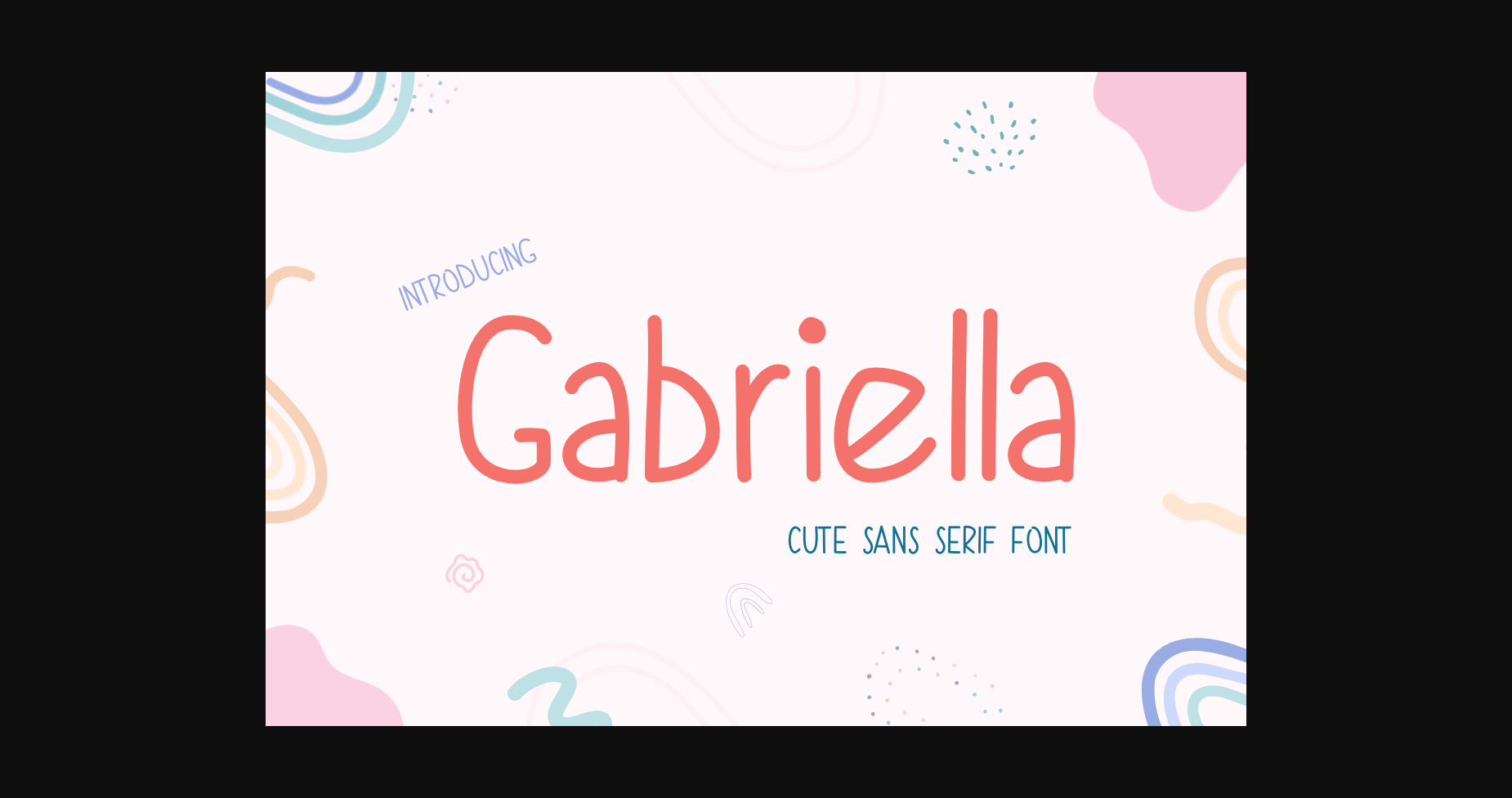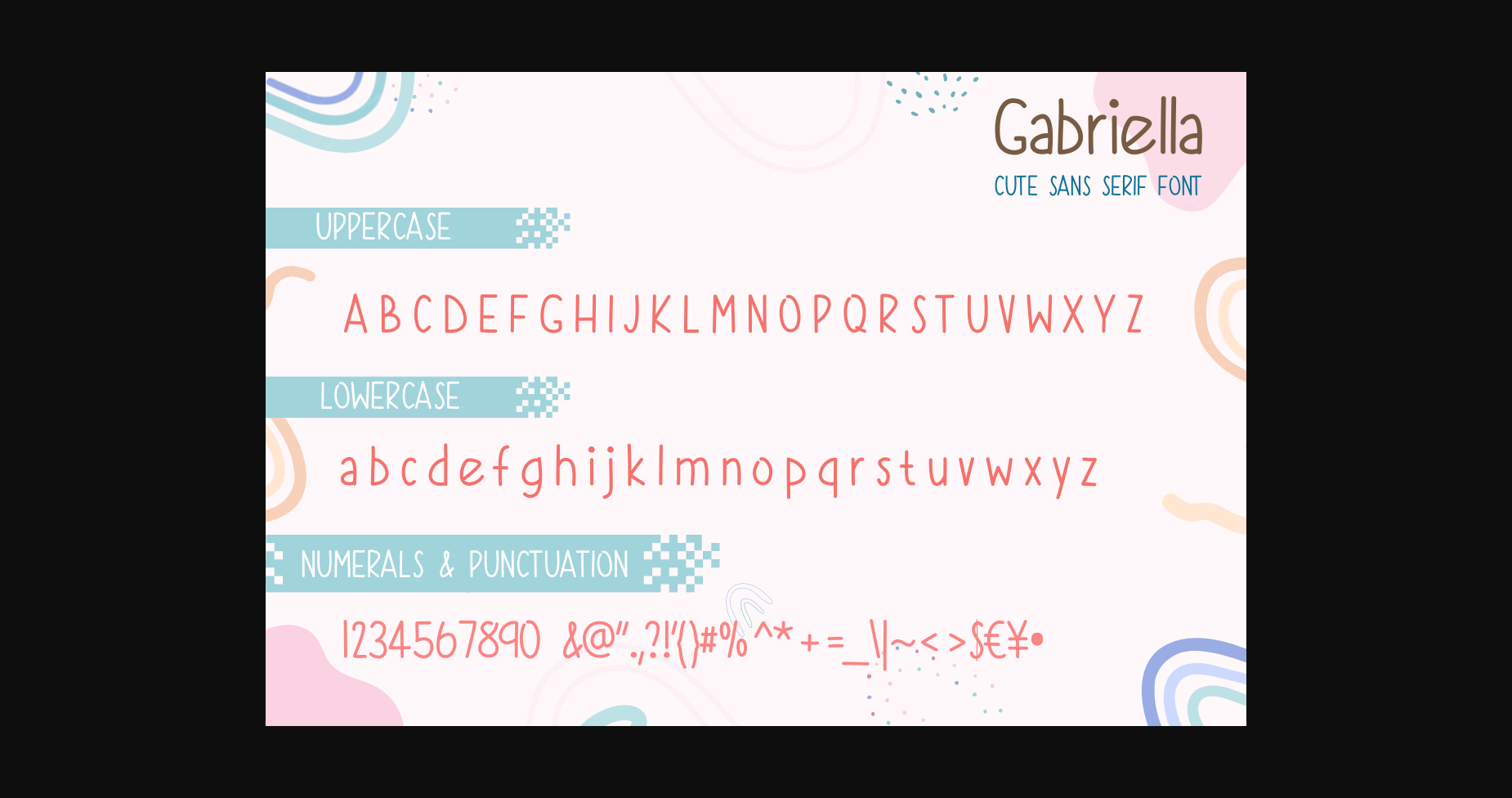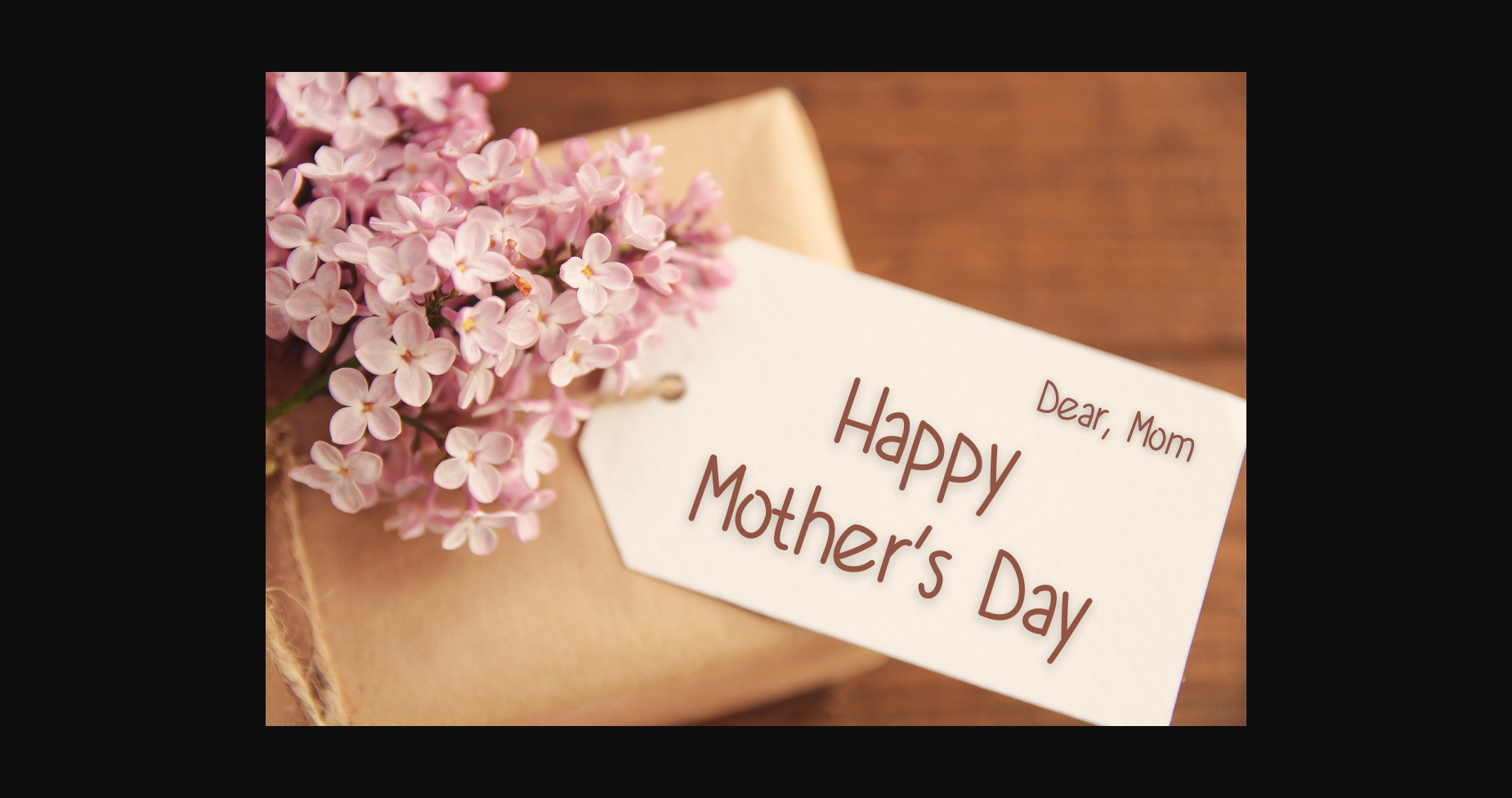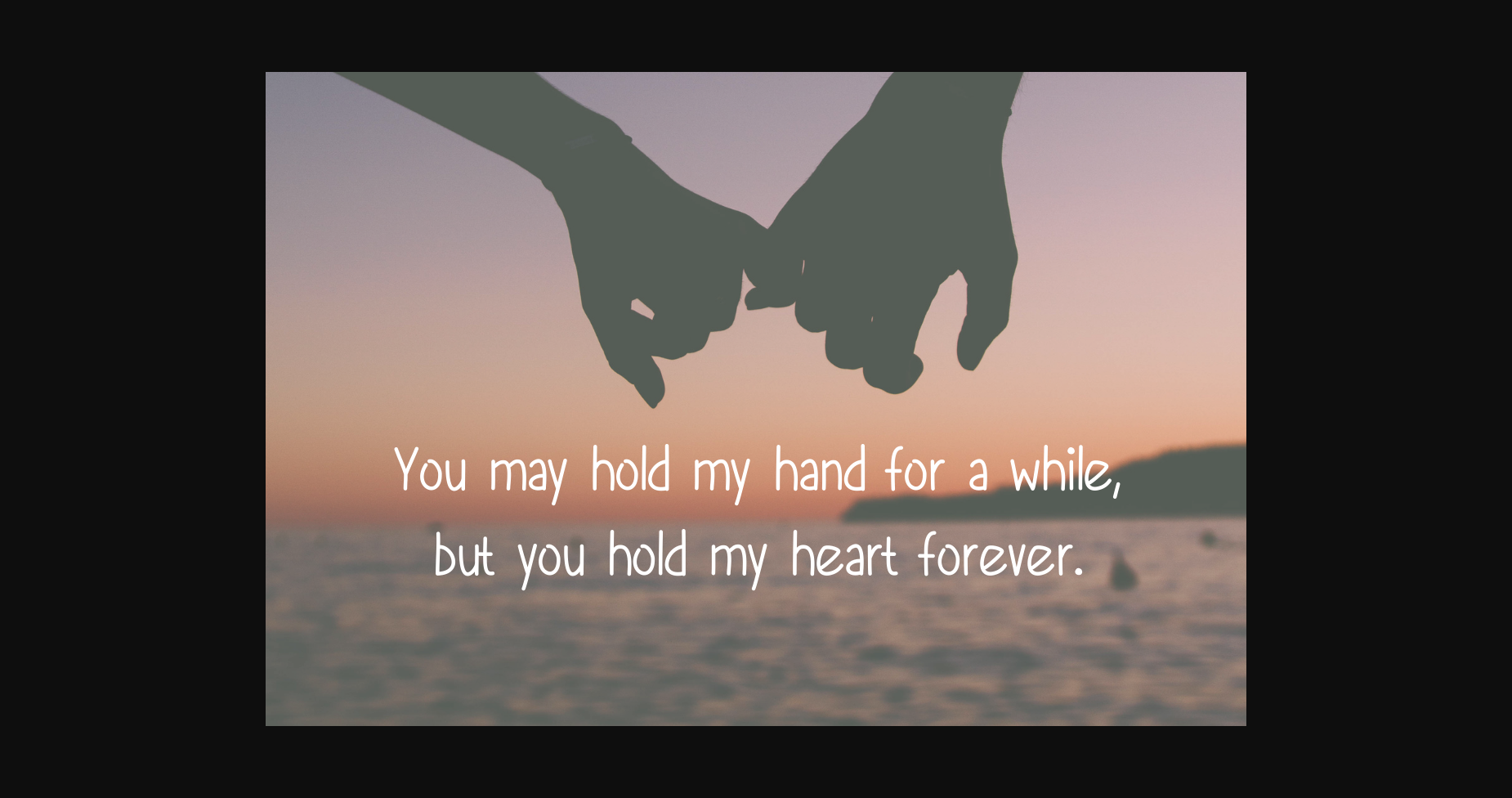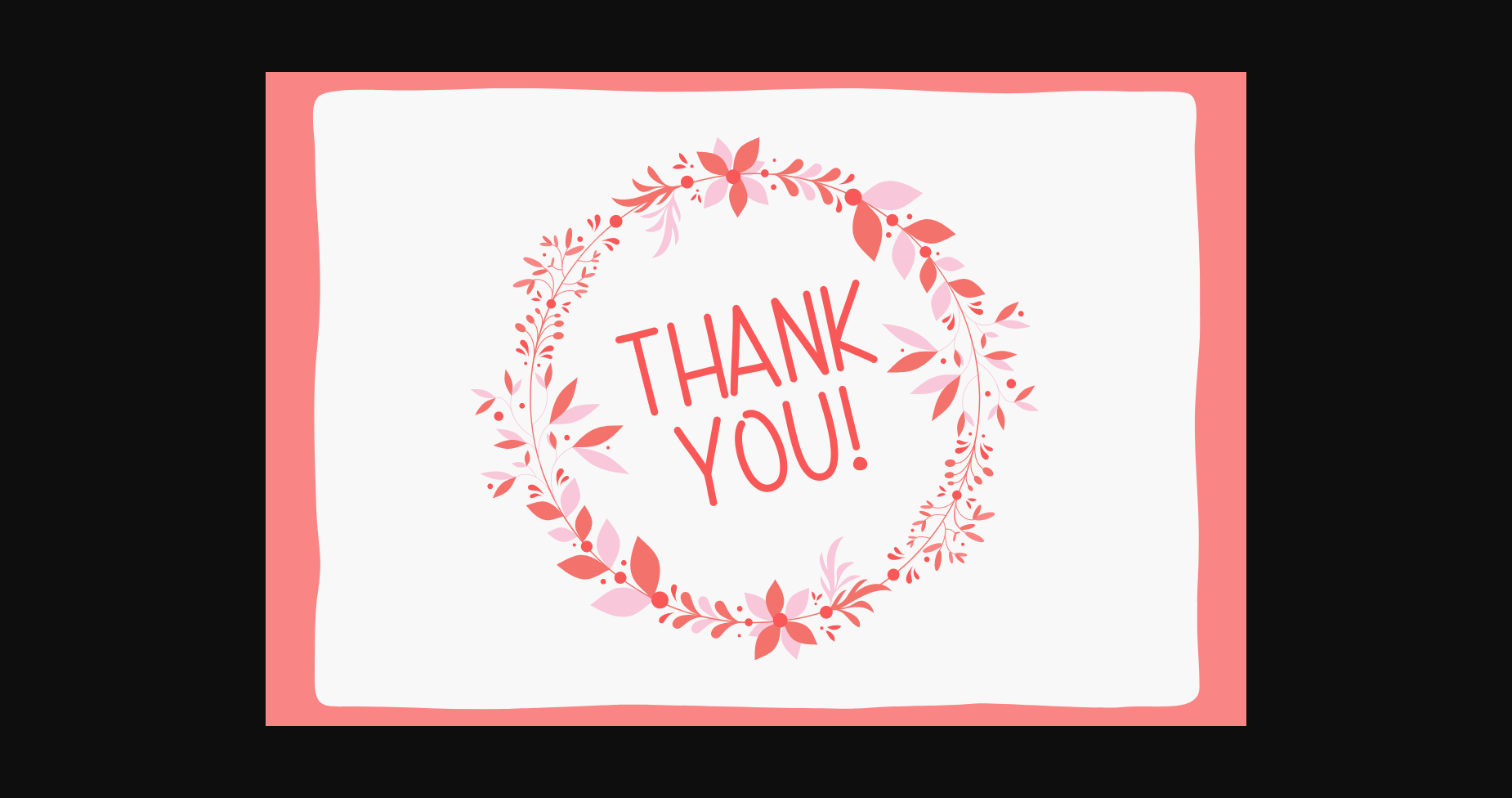
HomeSans Serif FontsGabriella Font Sans Serif Fonts Gabriella Font FacebookXPinterestWhatsApp 1 of 7 ... Gabriella Font Poster 2... Gabriella Font Poster 3... Gabriella Font Poster 4... Gabriella Font Poster 5... Gabriella Font Poster 6... Gabriella Font Poster 7... About Gabriella Font Gabriella is a clean and neat sans serif font. Whether you’re looking for fonts for Instagram or calligraphy scripts for DIY projects, this font will turn any creative idea into a true piece of art! DOWNLOAD NOW People also explored Sister Font The House Font Siluetta Font Piece by Broken Piece Font Ramoon Font Yonliws Font Good Morning Font Creamy Manggo Font Love Ayu Font 323 0 TagsGabriella Font Previous articleProtique FontNext articleKolvatio Font LEAVE A REPLY Cancel reply Comment: Please enter your comment! Name:* Please enter your name here Email:* You have entered an incorrect email address! Please enter your email address here Website: Save my name, email, and website in this browser for the next time I comment. Personal Use Free Sunshine Tropical Font Personal Use Free Read more about this font Dead Block Personal Use Free Read more about this font Mandarins Personal Use Free Read more about this font Legacy Personal Use Free Read more about this font BLOG Free vs Paid Fonts: Why Investing in Premium Fonts Is Worth It Free vs Paid Fonts: Why Premium Fonts Are Worth It in 2025 The debate of free vs paid fonts continues in the design world. While... Best Fonts for YouTube Videos: Make Your Thumbnails Stand Out 5 Fonts That Will Dominate Design Trends in 2026 Transform Your Website: Elevate Your Typography with 7 Best Web Font Generators